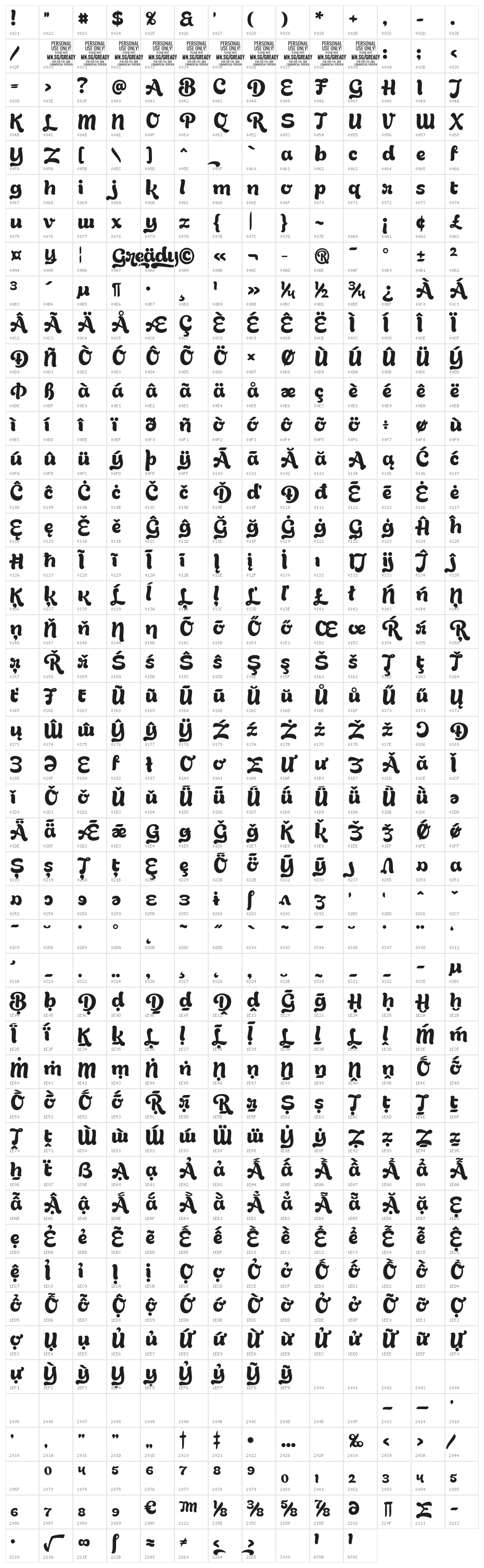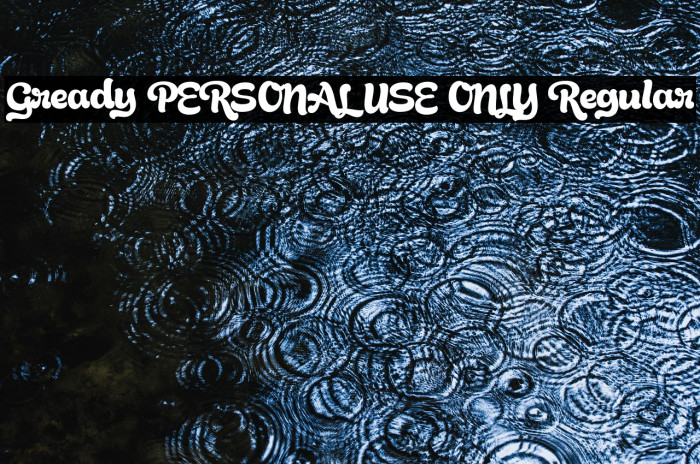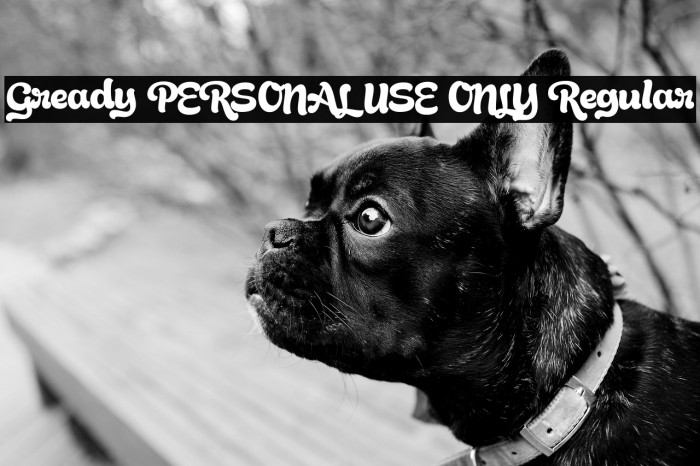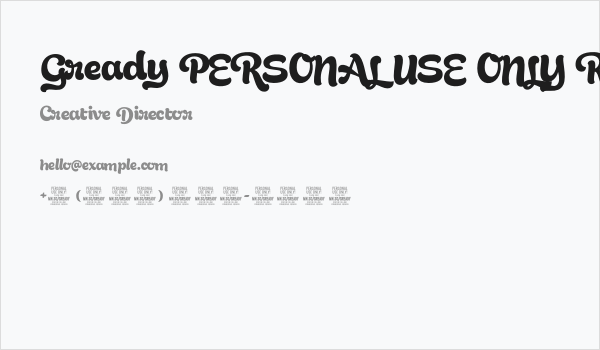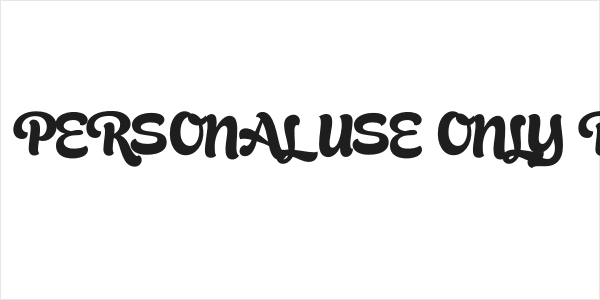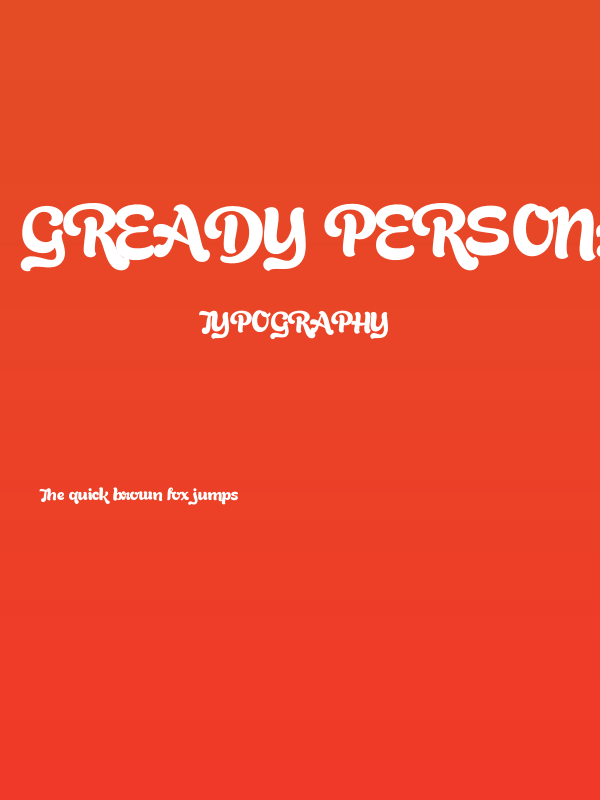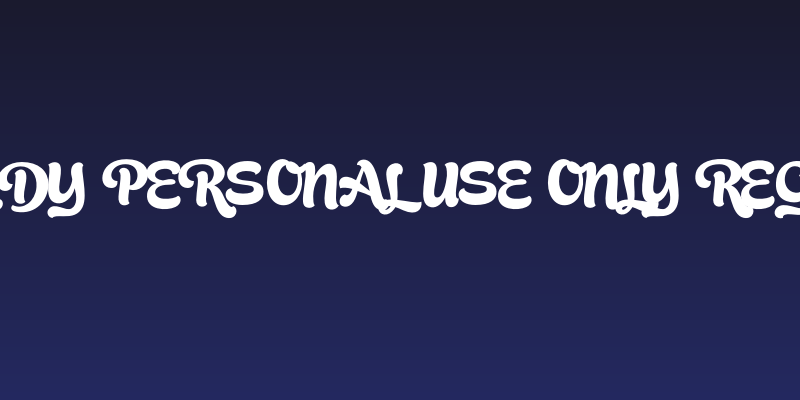
Gready PERSONAL USE ONLY Regular Font
Gready PERSONAL USE ONLY Regular Description
This font features a bold and playful script style with a strong presence. The characters are rounded and have a flowing, cursive appearance, giving it a lively and dynamic feel. The uppercase letters are particularly bold, with exaggerated curves and loops, while the lowercase letters maintain a consistent style with slightly more subtle curves. The numbers and special characters follow the same playful design, making the font suitable for creative and informal applications. The overall design is cohesive, with a consistent stroke width that adds to its boldness.